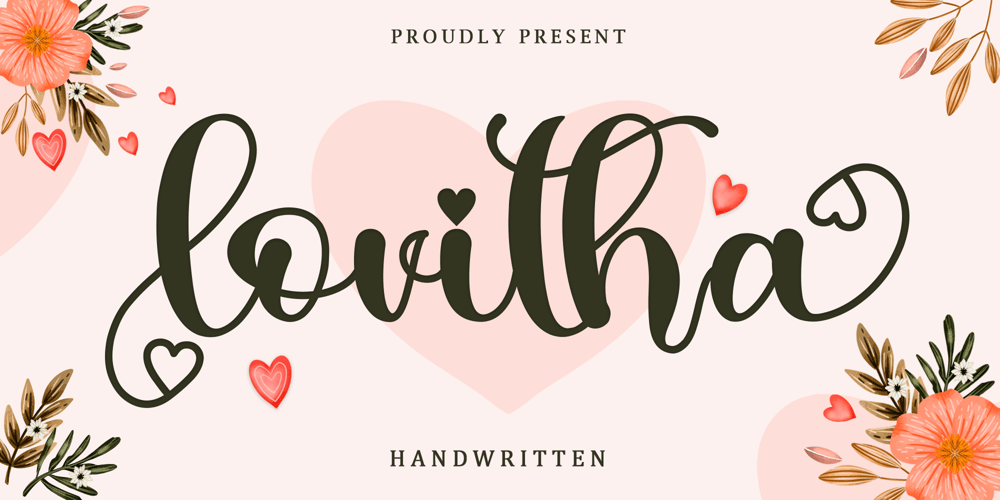
Lovitha
Lovitha font
Lovitha Font Family was designed by Alif Ryan Zulfikar and published by Sakha Design. Lovitha contains 2 styles and family package options. Lovitha is a modern handwritten font featuring characters that seem to dance along the baseline. It looks romantic and beautifully flowing, and it would make a wonderful choice for projects that need a personal note.This font is PUA encoded, which means you can access all of the glyphs and swashes with ease!